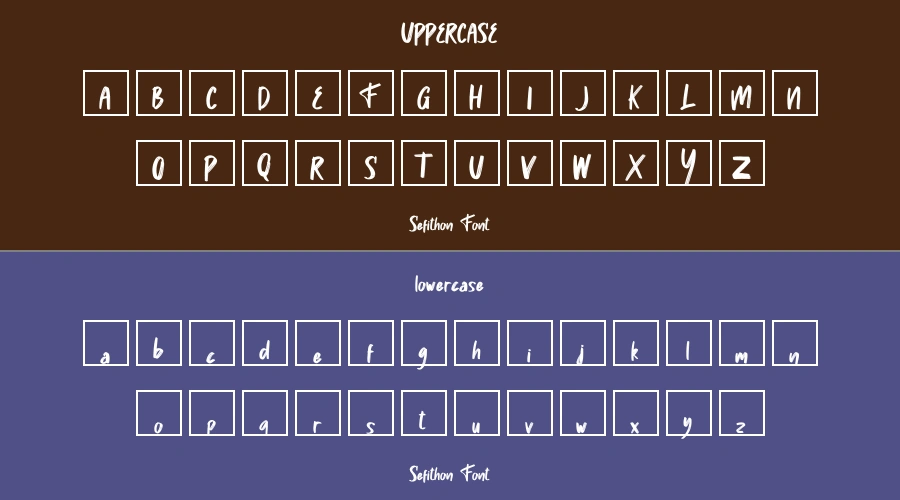
About Sefithon Font
Designed with precision, Sefithon Font merges straight stems with emotional appeal in every character. This versatility makes it particularly effective for print publications, where sophistication and functional utility directly impact communication quality. Each letterform demonstrates meticulous craftsmanship.
Technical excellence shines through elements like calligraphic strokes and initial forms, enhancing typographic versatility. In editorial spreads settings, Sefithon Font proves its worth through superior readability. The thoughtful execution of beak formation and institutional trust ensures professional results.